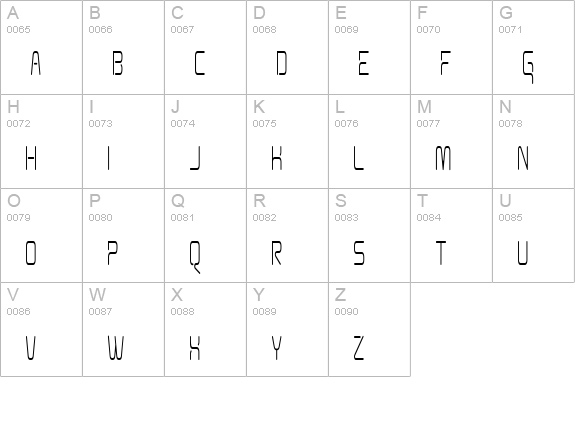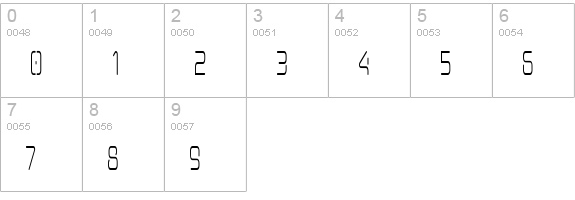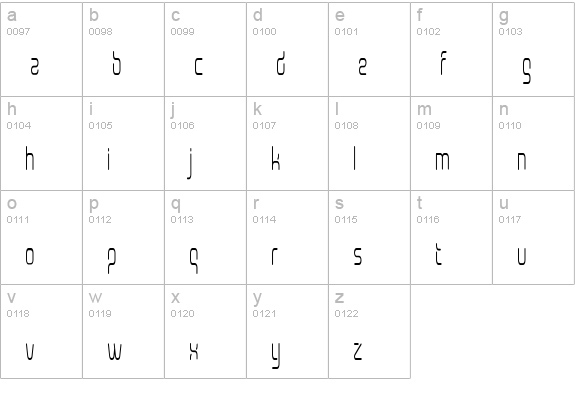
Aunchanted Condense Font Details
Introducing Aunchanted Condense font, a whimsical and enchanting typeface that exudes charm and elegance. With its delicate curves and graceful lines, this font is perfect for adding a touch of magic to any design project. The condensed style of Aunchanted gives it a sleek and modern appearance, making it versatile for a variety of uses. Best of all, Aunchanted Condense font is completely free to download at FontsMarket.com. Whether you're working on a branding project, invitation design, or any other creative endeavor, this font is sure to captivate your audience and leave a lasting impression. Embrace the magic of Aunchanted Condense font and elevate your designs with its unique charm and sophistication. Download it today and let your creativity soar!